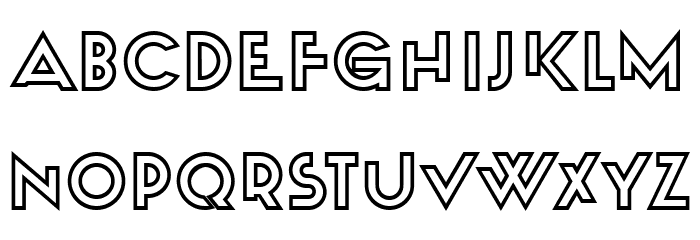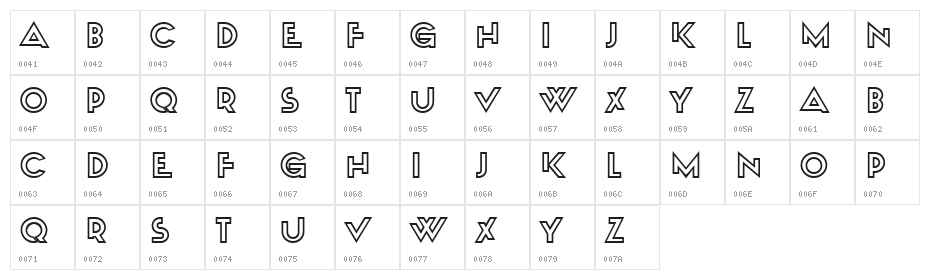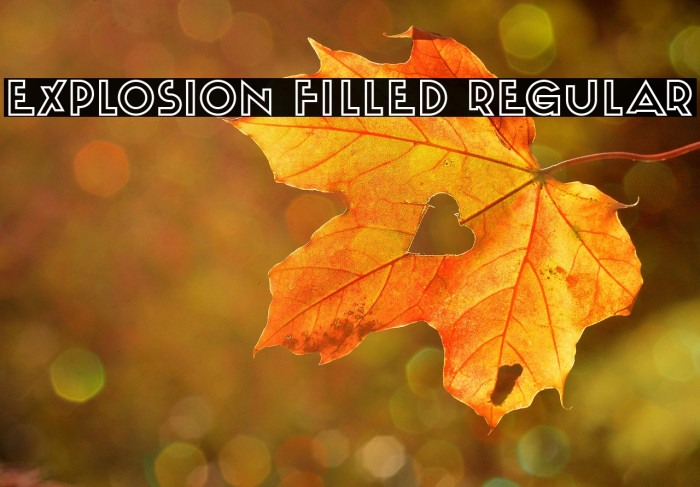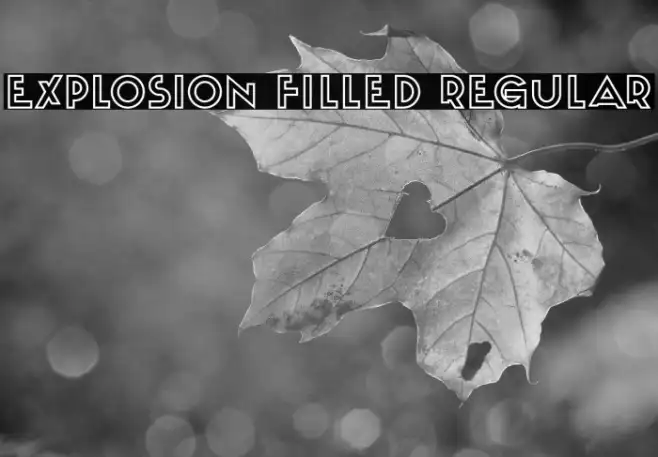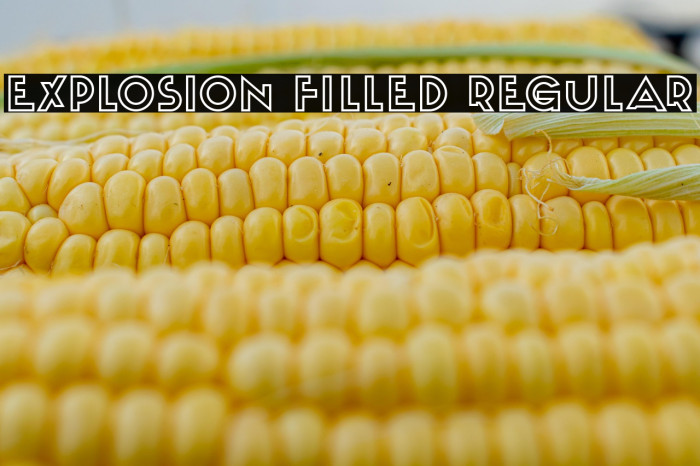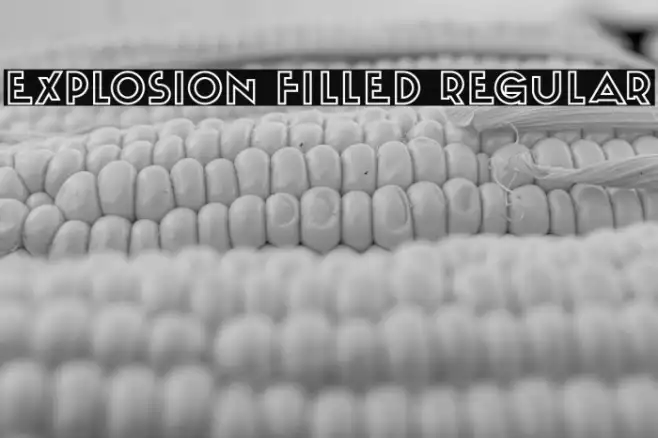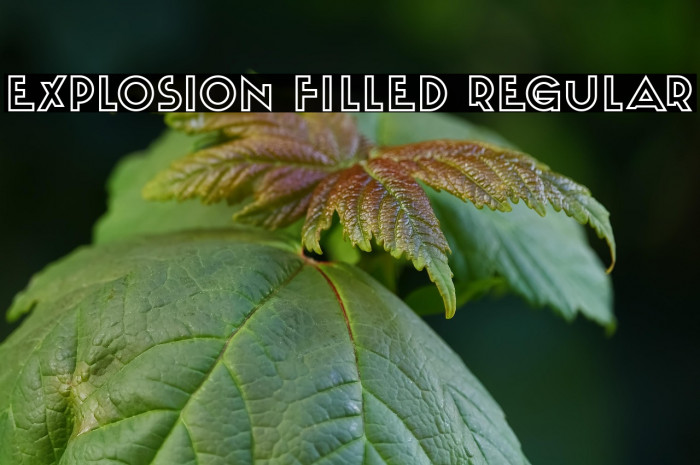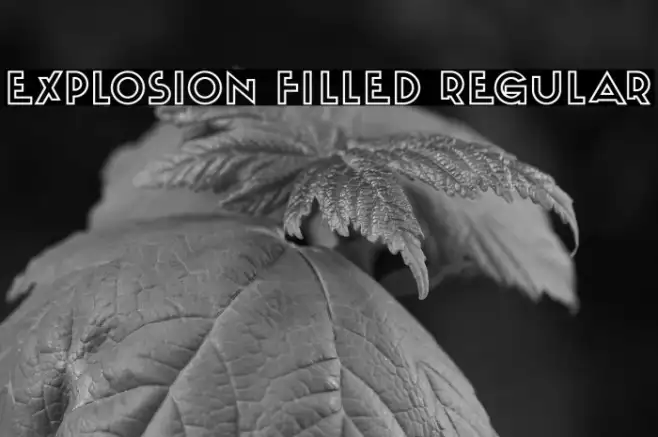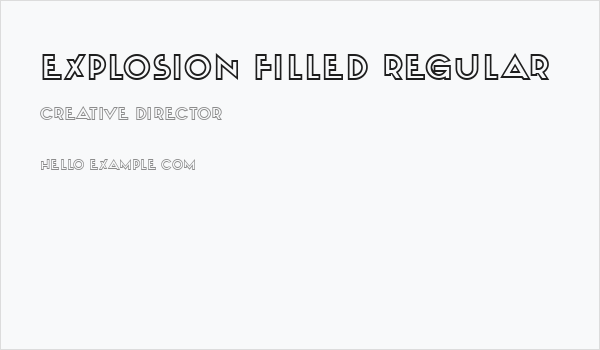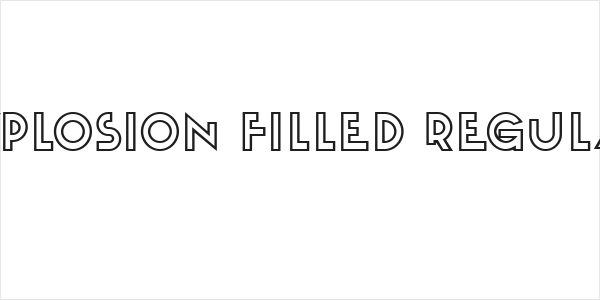
Explosion Filled Regular Font
Explosion Filled Regular Description
This font features a bold, geometric design with a distinctive outline style that gives it a modern and dynamic appearance. The characters are constructed with clean, straight lines and sharp angles, creating a sense of movement and energy. The uppercase letters are uniform in height, contributing to a cohesive and structured look. The font's design is reminiscent of architectural or industrial aesthetics, making it suitable for projects that require a strong visual impact. Its unique style can capture attention and convey a sense of innovation and creativity.
| Proposed Projects | Ideal for posters, headlines, logos, and branding materials that require a striking and contemporary look. |